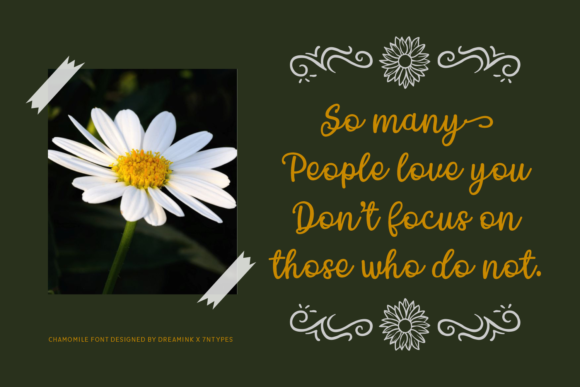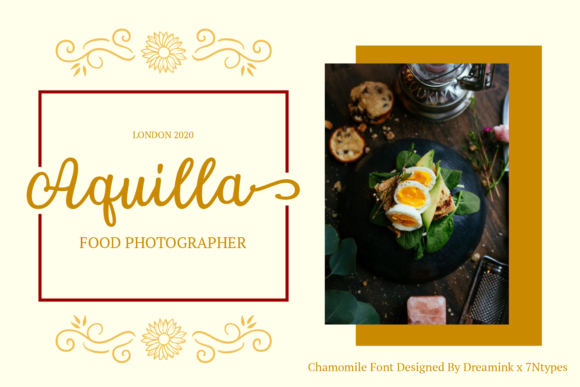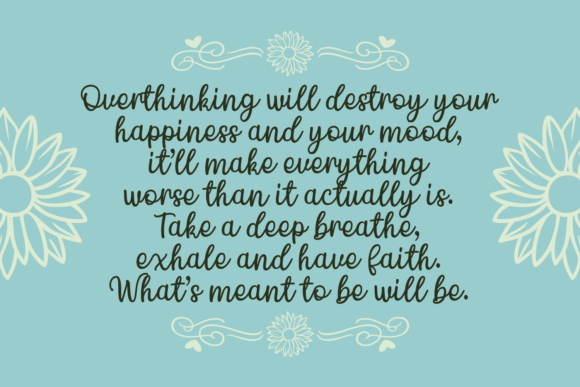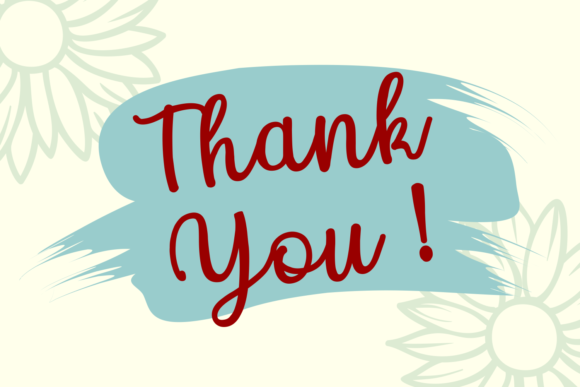
Find Your Calm in Design with the Soothing Chamomile Font
It’s that moment when the clock strikes midnight, and you’re still staring at your screen, trying to perfect that one design element. The words “just one more tweak” become your mantra, but your brain is screaming for a break. This is when the soothing power of the Chamomile Font kicks in. A sweet, soft hand-lettered handwritten font, designed to calm your creative nerves and add a touch of warmth to your designs.
The Chamomile Font is more than just a pretty face – it’s a valuable tool for designers looking to add a personal touch to their work. With its PUA encoding, you can access all the beautiful glyphs and swashes with ease, taking your designs to the next level. Whether you’re a seasoned pro or just starting out, the Chamomile Font is sure to become your go-to companion for all your design needs.
Chamomile Font Key Features
- Font Family: Chamomile, a elegant and sophisticated script font.
- Size: 5,600+ glyphs, including a wide range of Latin, Cyrillic, and Greek characters, making it suitable for multilingual designs.
- Unique Characteristics: Features a unique blend of traditional and modern elements, with intricate details and subtle flair, perfect for adding a touch of sophistication to designs.
Chamomile Font Review
Overall, I think the Chamomile Font is a lovely, serene addition to any design project. ✨ It’s perfect for creating a soothing atmosphere, and the soft, rounded edges make it ideal for use in branding and advertising materials.
The font is well-designed, with a clear and legible character set. ✨ The various weights and styles available allow for a good range of creative possibilities, from bold headlines to delicate body text.
Here are some specific strengths and limitations I’ve observed:
- ✨ The Chamomile Font is highly versatile and can be used in a wide range of applications, from packaging to digital displays.
- ✨ The font is well-suited for use in logos and branding materials, thanks to its distinctive and memorable design.
- ⚠️ The font may be too soft and subtle for some projects, particularly those that require a strong, attention-grabbing impact.
- ⚠️ The font’s rounded edges can make it difficult to read at very small sizes, particularly in digital environments.
Overall, I think the Chamomile Font is a solid choice for designers looking to create a calming and soothing aesthetic. While it may not be the best fit for every project, it’s a great option for those seeking a gentle, approachable look.
Getting the Most Out of Chamomile Font
For optimal results, use Chamomile Font in combination with calming colors and soft textures. This font is particularly suitable for designs related to wellness, self-care, and nature.
Chamomile Font is ideal for:
- Wellness and self-care branding
- Nature-inspired designs
- Calming and soothing websites
- Health and wellness marketing materials
Alternatives to Chamomile Font for Designers
Lato is a clean, modern sans-serif font that is ideal for use in digital products and web applications. It’s highly legible and works well for both body text and headings.
Compared to Chamomile Font, Lato has a more contemporary feel and is more versatile in terms of its applications. While Chamomile Font has a softer, more whimsical quality, Lato is more straightforward and functional.
Montserrat is a geometric sans-serif font that is designed for use in urban environments. It’s highly legible and works well in a variety of contexts, from body text to headings and titles.